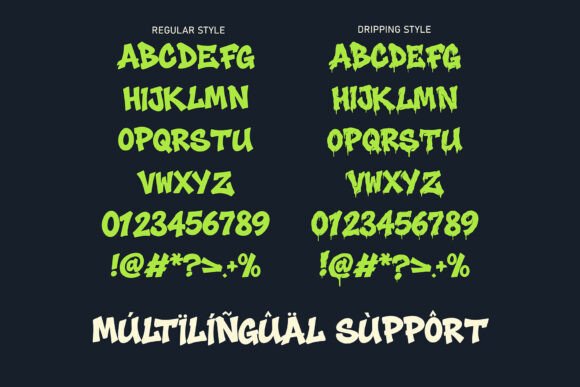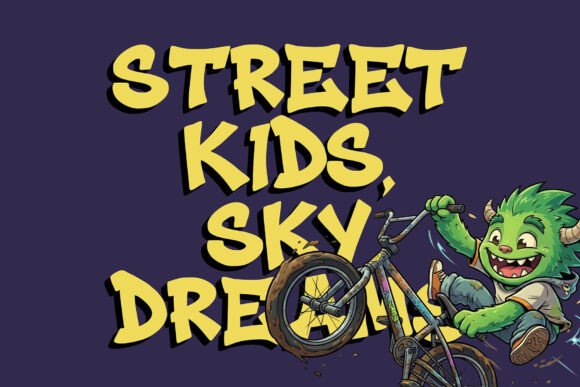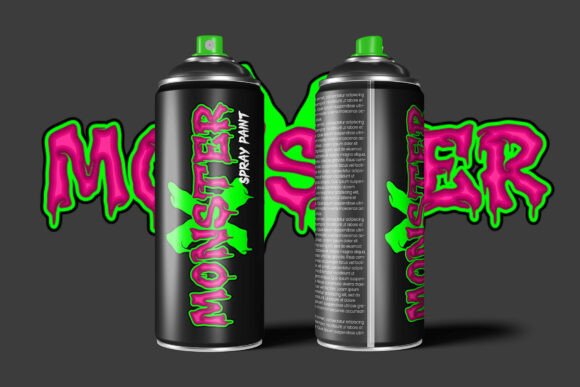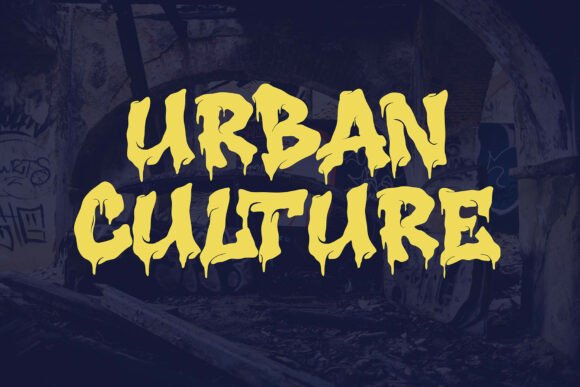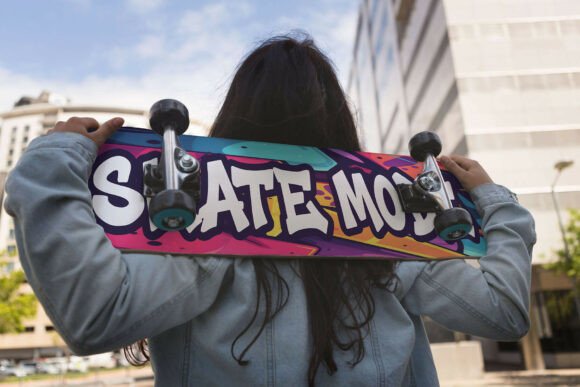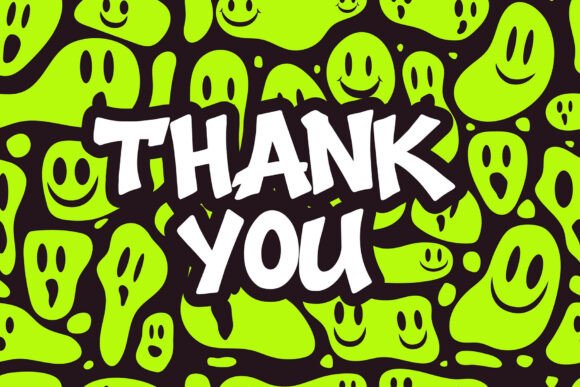
Unleash Your Creativity with Grime Slime: The Ultimate Graffiti Font
Are you tired of using the same old fonts in your designs? Do you want to add a touch of edginess and rebellion to your projects? Look no further than Grime Slime, the rugged and melting graffiti font from Cikareotype. Inspired by the untamed spirit of the urban jungle, Grime Slime is the perfect choice for designers and crafters who want to make a bold statement.
The Inspiration Behind Grime Slime
Grime Slime’s inspiration is firmly rooted in underground graffiti culture, the macabre, and the grit of city streets. The font’s creator, Cikareotype, has drawn from the raw energy and rebelliousness of urban art to craft a typeface that packs a fierce punch in any design scheme. With its dripping, oozing aesthetic, Grime Slime channels a potent, almost toxic energy, while retaining its rebellious street sophistication.
Unique Characteristics of Grime Slime
Grime Slime flaunts character deformities with pride, making it a truly one-of-a-kind font. Its swaying edges, fluid drips, and organic morphing mimic slime trails, creating a wild, yet readable spectacle. The font’s fierce visual rhythm commands attention, making it perfect for headlining or making an audacious statement. Whether you’re designing a streetwear logo, a horror poster, or a music album cover, Grime Slime is sure to turn heads.
Perfect for Urban-Centric Branding
Grime Slime is ideal for urban-centric branding, and its versatility makes it suitable for a wide range of applications. From streetwear and skate graphics to BMX and game visuals, this font comes alive in designs that require a bold and edgy aesthetic. It’s also perfect for music album covers, horror posters, YouTube thumbnails, Twitch overlays, and more.
Integrating with Various Themes
One of the best things about Grime Slime is its dystopian vibe, which effortlessly integrates with various themes. Whether you’re working on a horror project, a sci-fi game, or a streetwear brand, this font’s gritty, urban feel will add a touch of authenticity to your design. The font’s macabre and gritty aesthetic also makes it perfect for Halloween-themed designs, horror movies, and dark fantasy projects.
Tips for Using Grime Slime
To get the most out of Grime Slime, here are a few tips to keep in mind:
- Use it sparingly: Grime Slime is a bold font, and using it sparingly will make it more effective. Use it for headlines or key phrases to draw attention.
- Experiment with colors: Grime Slime looks great in bold, bright colors, but it also works well in metallic or neon colors. Experiment with different colors to find the perfect fit for your design.
- Pair it with contrasting fonts: Grime Slime works well with clean, sans-serif fonts. Pair it with a contrasting font to create visual interest and add depth to your design.
Grime Slime is a game-changing font that’s sure to unleash your creativity and add a touch of rebellion to your designs. With its rugged, melting aesthetic and dystopian vibe, this font is perfect for urban-centric branding, horror projects, and more. Whether you’re a designer, crafter, or artist, Grime Slime is a must-have font that will take your projects to the next level.
Get Ready to Make a Statement